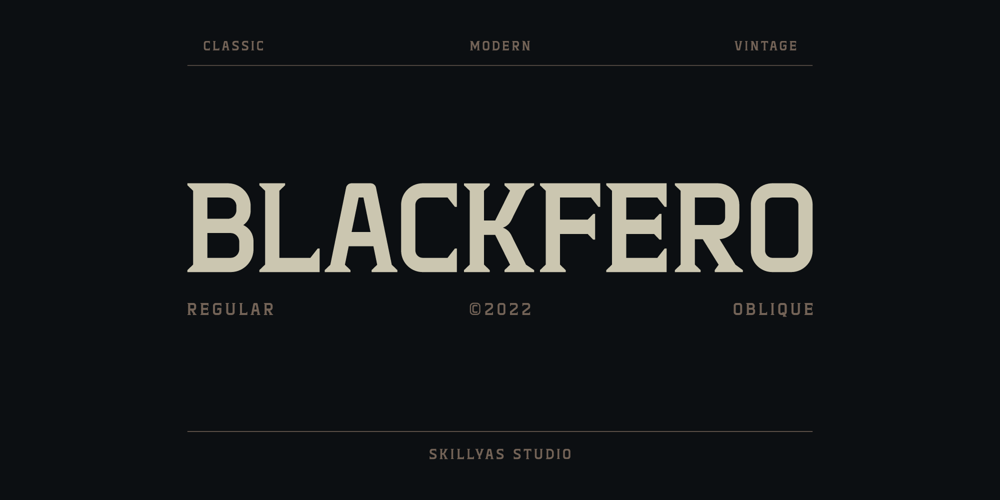
SS Blackfero Font Family was designed by ahmad faizin and published by skillyas studio. SS Blackfero contains 2 styles and family package options. Blackfero is a Serif Font inspired by the masculine greek art style. It perfectly represents vintage in a modern and minimalist way. Blackfero typeface will make your product design look standing and extraordinary.Blackfero comes with 377 glyphs, including uppercase and lowercase letters, alternate characters, and special ligatures.Blackfero Vintage Serif is perfect for branding projects, logos, Sports designs, social media posts, advertisements, product packaging, product designs, vintage label, photography, watermark, stationery, and any projects that need a strong taste.